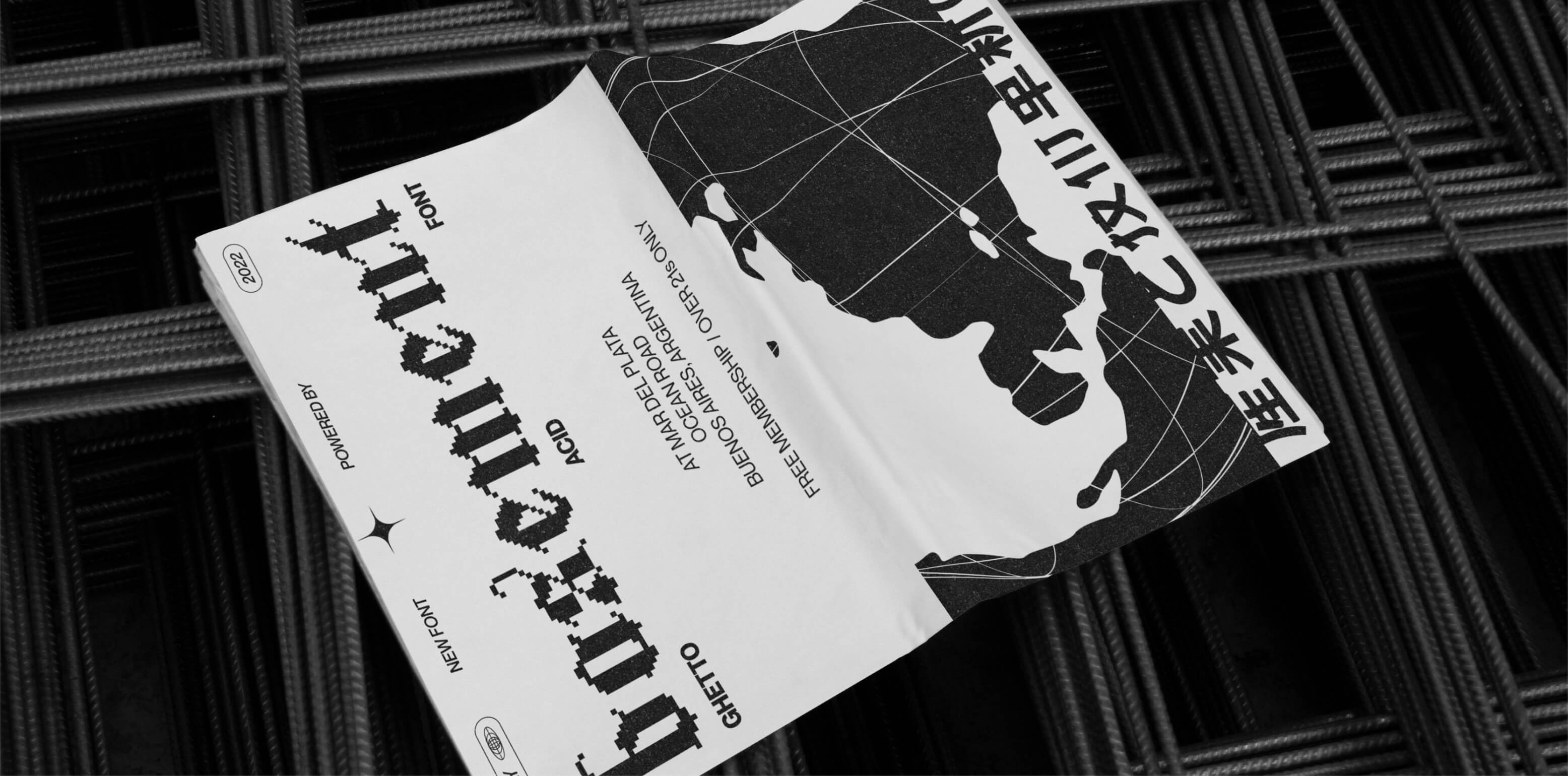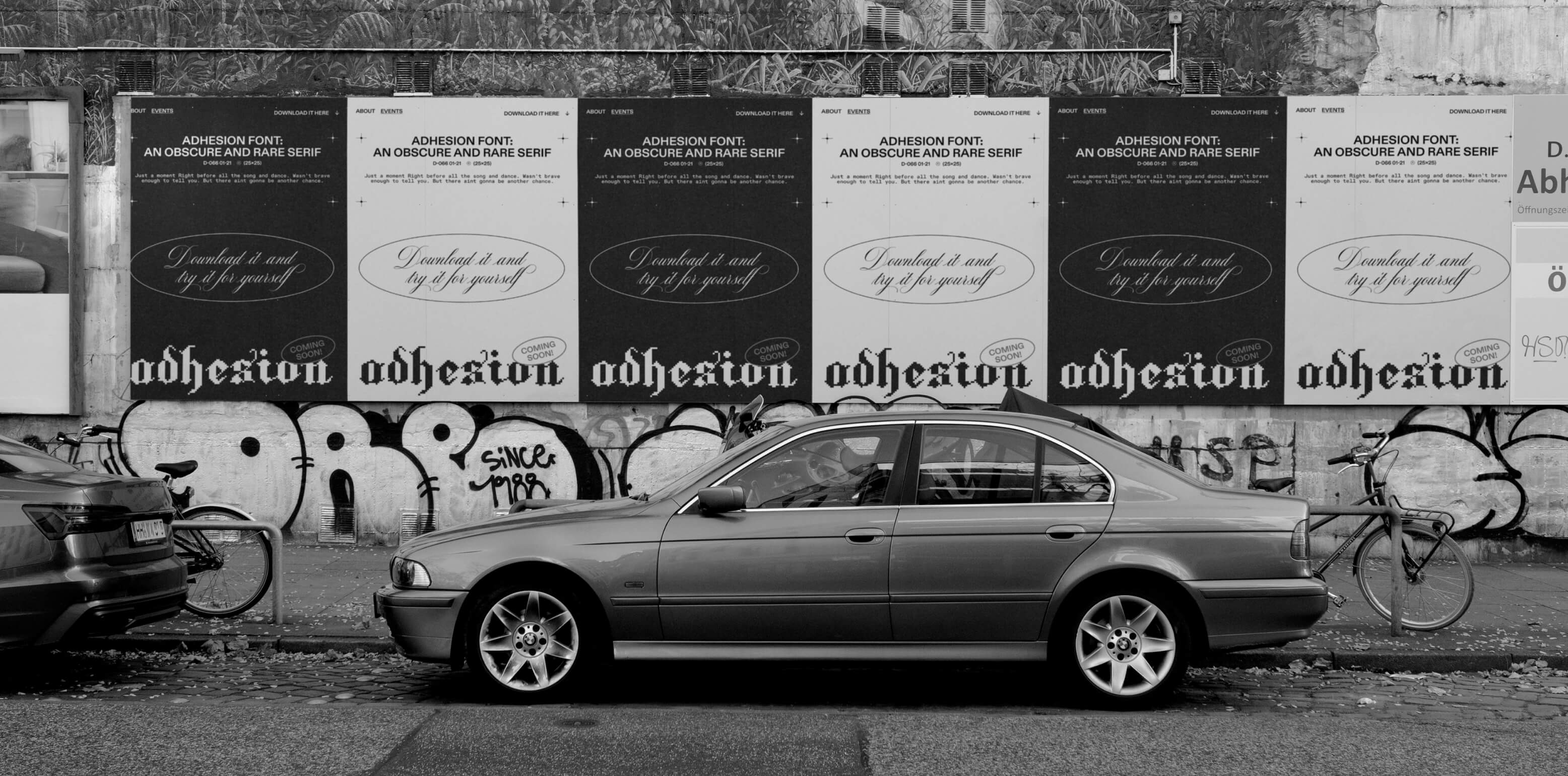
Lettering in blackletter typefaces has a highly stylized appearance rooted in medieval, classic calligraphy. The letterforms are often dense with flourishing ascenders and caps. Adhesion is a perfect example of this movement.
Adhesion
DescriptionLetterforms in blackletter typefaces have a highly stylized appearance rooted in medieval, classic calligraphy. The letterforms are often dense with flourishing ascenders and caps. Adhesion is a perfect example of this movement viewed through the lens of a modern and tech-infused style. Consisting of only lowercase characters, this font is a perfect mix of the traditions of the past with the modern visual landscape of today represented by the pixel as a unit of construction.